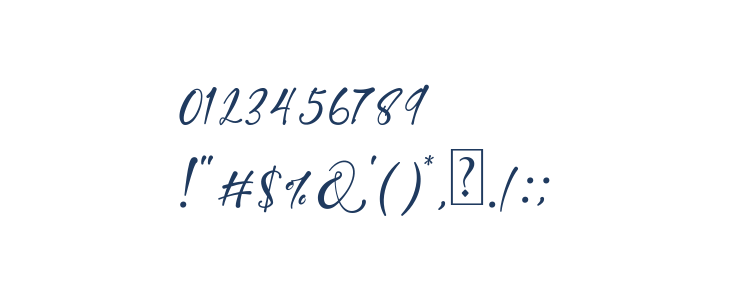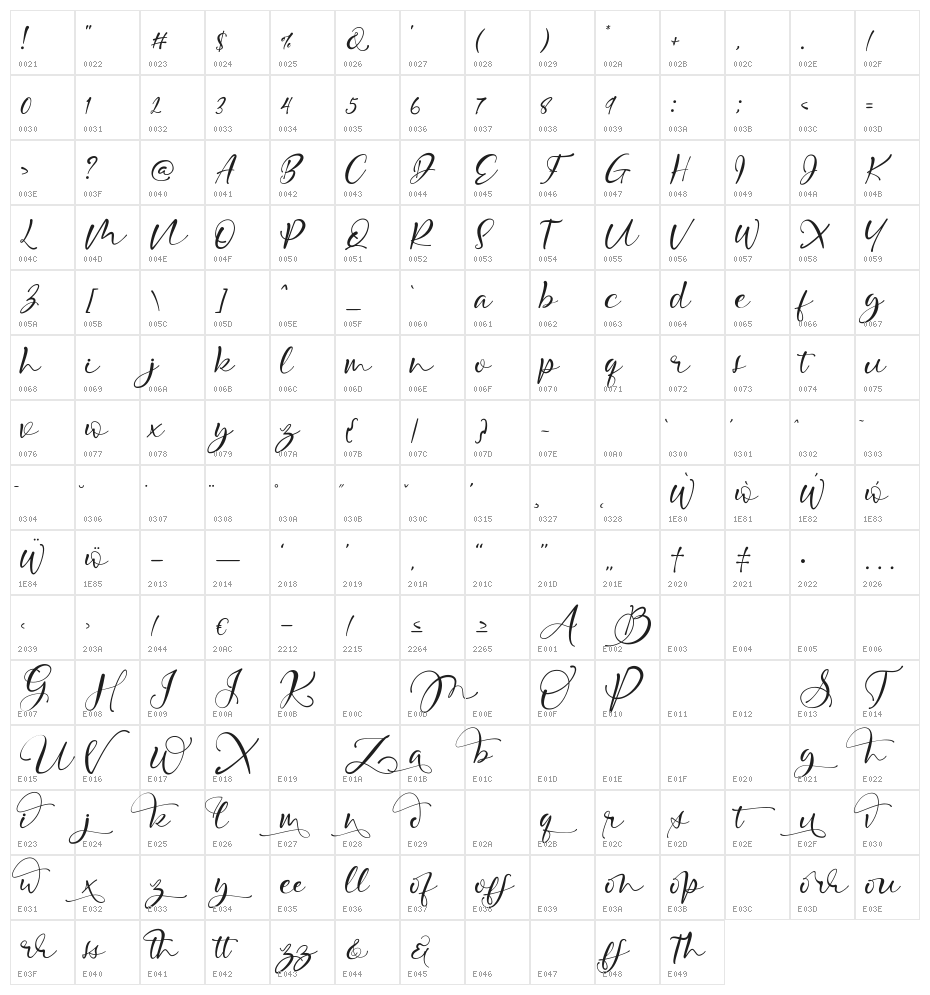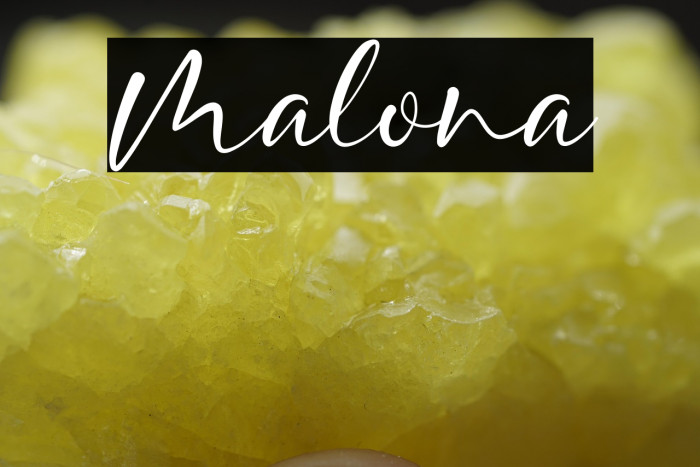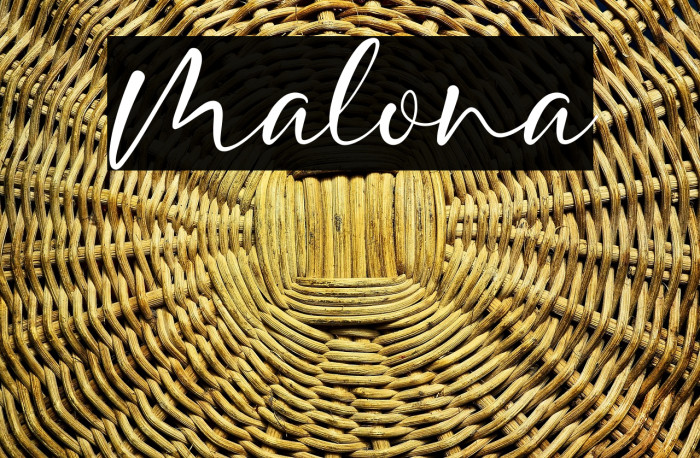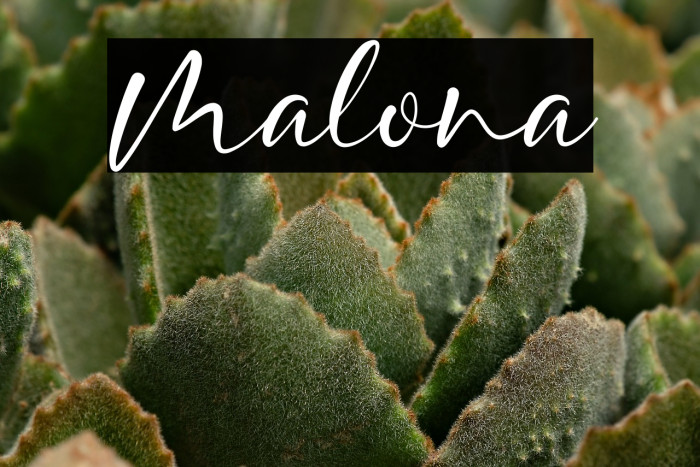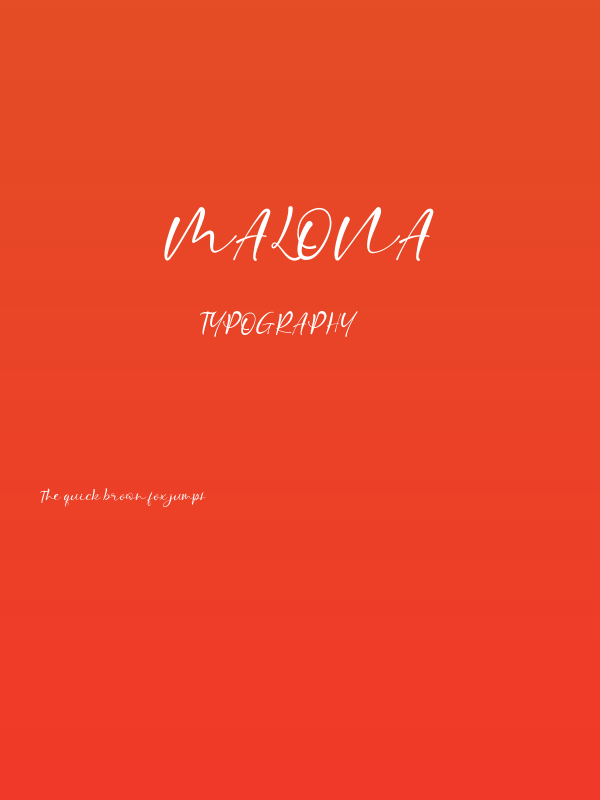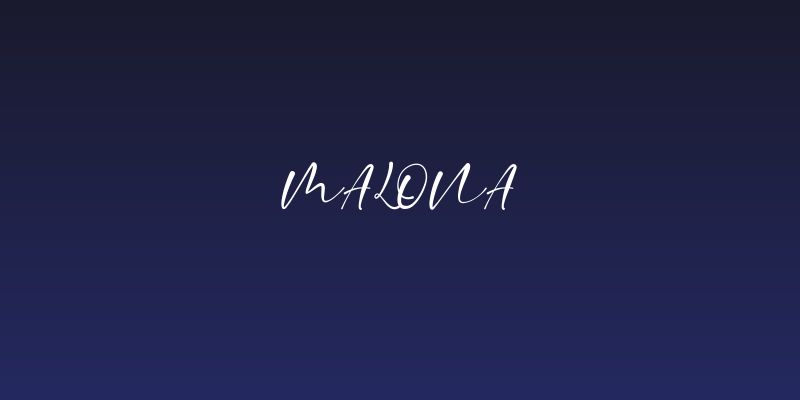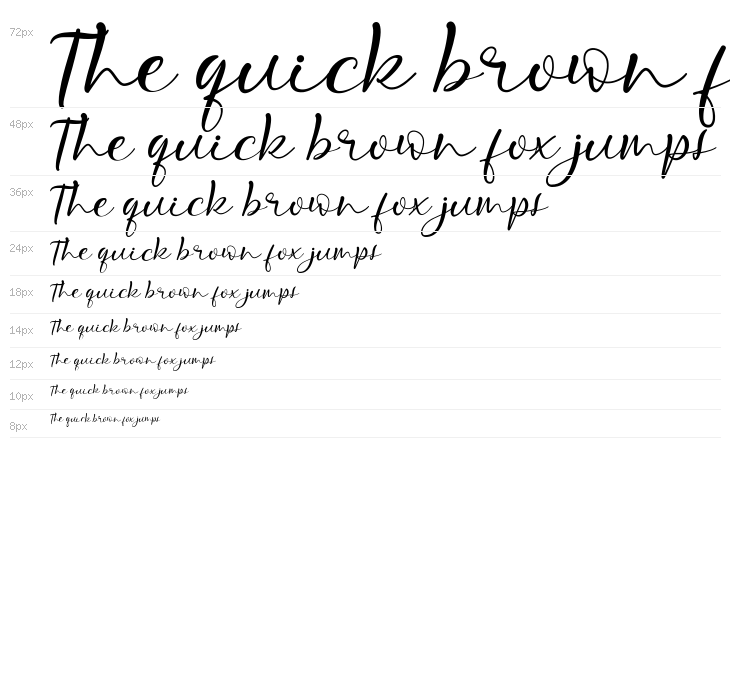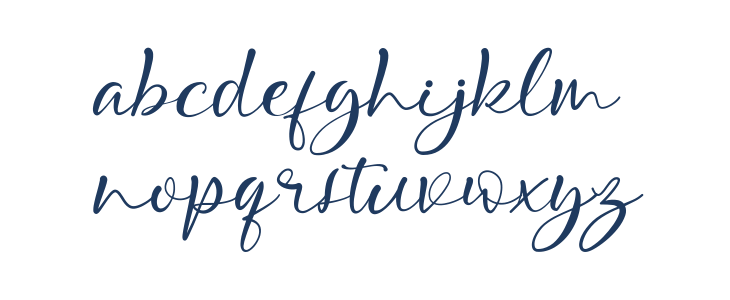
Malona Font
Malona Description
This elegant script font features a flowing, cursive style with smooth, connected strokes that give it a graceful and sophisticated appearance. The uppercase letters are tall and slightly slanted, while the lowercase letters maintain a consistent flow with delicate loops and curves. The numerals and special characters are designed to complement the overall script style, adding a touch of refinement. The font's fluidity and artistic flair make it ideal for projects that require a personal, handwritten touch.